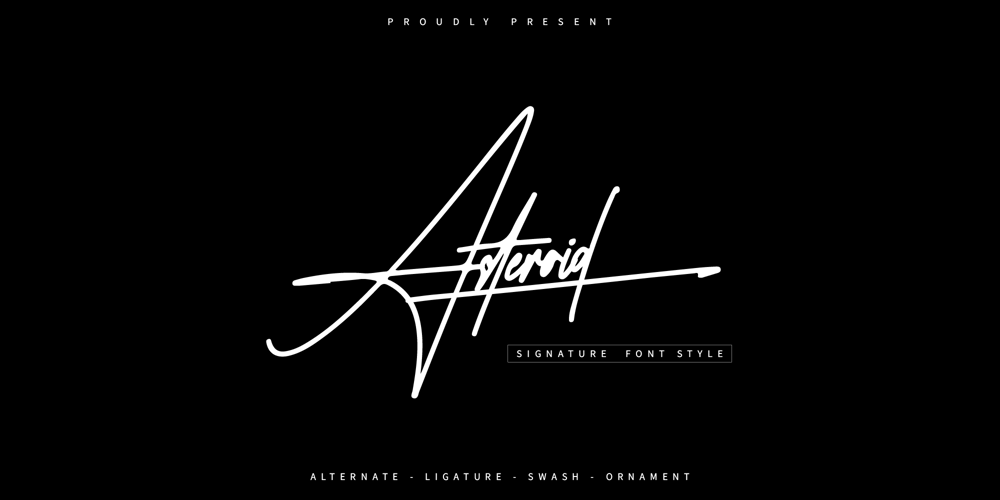
Asteroid
Asteroid font
Asteroid Font Family was designed by ryan creative and published by ryan creative. Asteroid contains 1 styles and family package options. Asteroid is a script typeface with hand-drawn strokes and a monoline which makes this font look natural and modern. Get a touch of a simple, and fun, signature script font with glyphs and open type features with styles and binders, Swash, and the addition of Alternative and Ornament. This font is more decorative and artistic suitable for art or fashion brands. It can be used for various purposes. such as brand name, signature, logo, etc.Features;-Uppercase, Lowercase, Foreign Support, Numbers and Punctuation.-Alternative, Swash, Ligature and Ornament.-Works on PC.-Simple installation.-Accessible in Adobe Illustrator, Adobe Photoshop. Adobe InDesign, even works in Microsoft Word.-Fully accessible without additional design software.Asteroids is coded with Unicode PUA, which allows full access to all additional characters without having to design any special software. Mac users can use the Font book, and Windows users can use the Character map to view and copy any extra characters to paste into your favorite text editor/app. Thanks for visiting ๐Ÿ˜‰